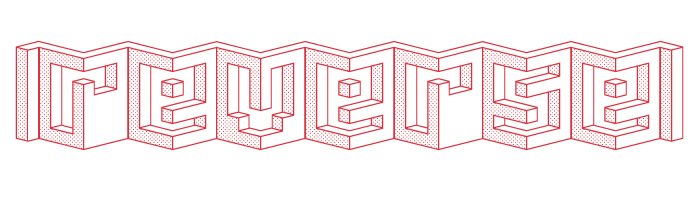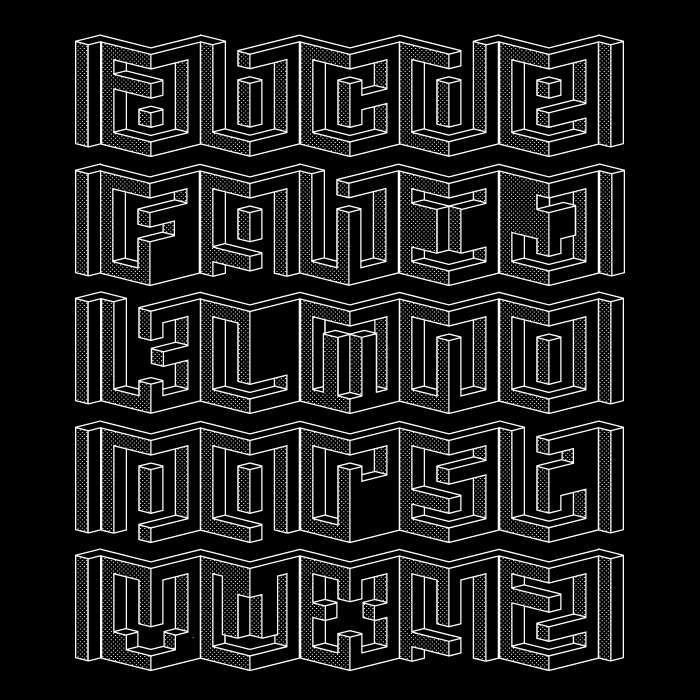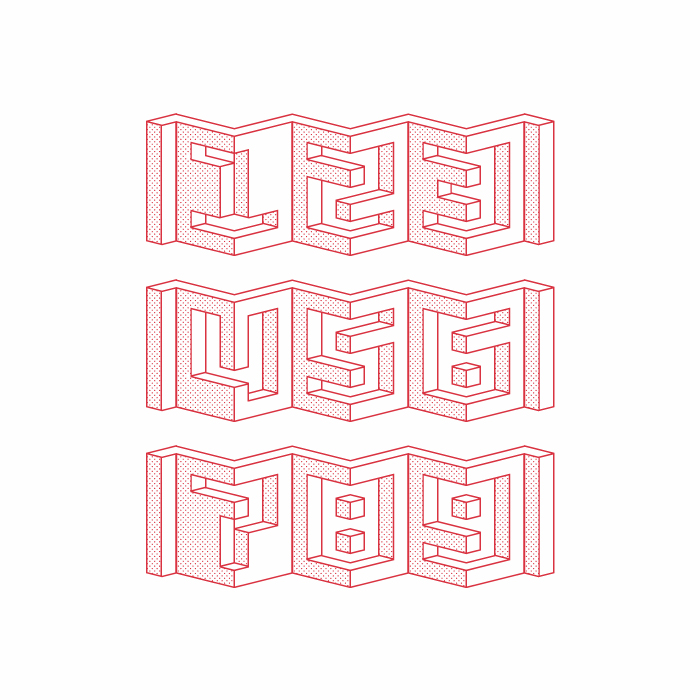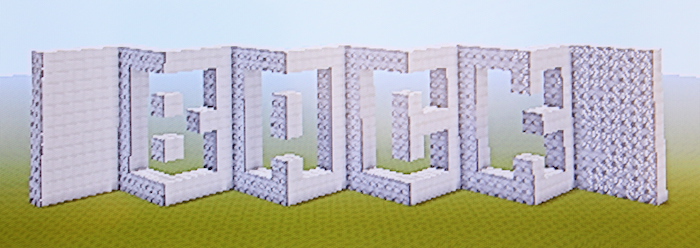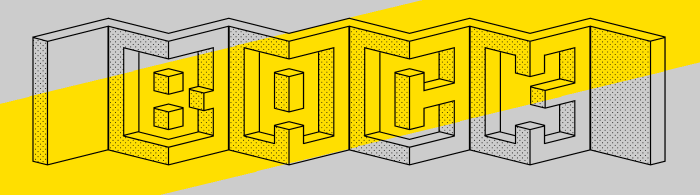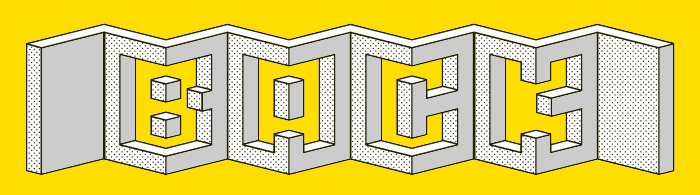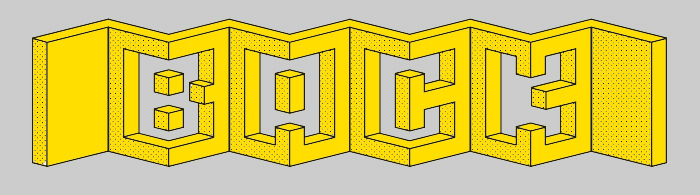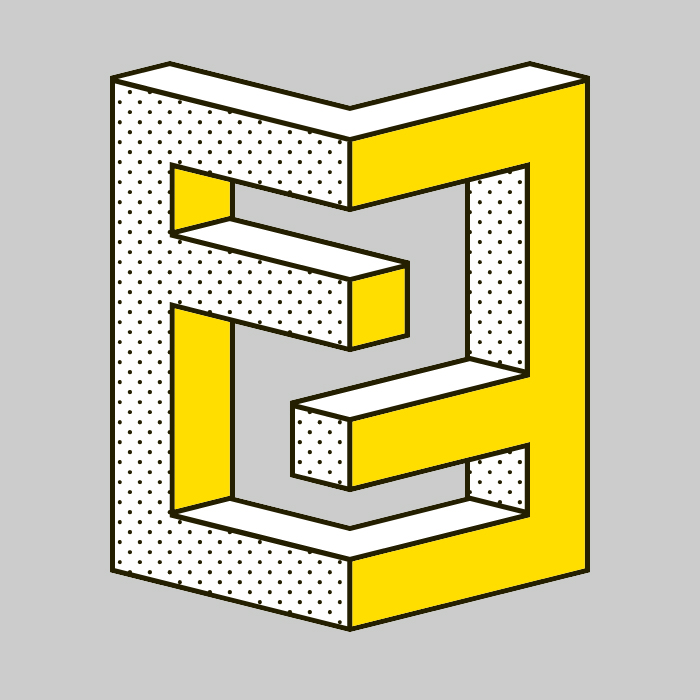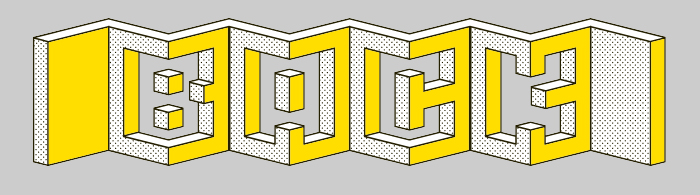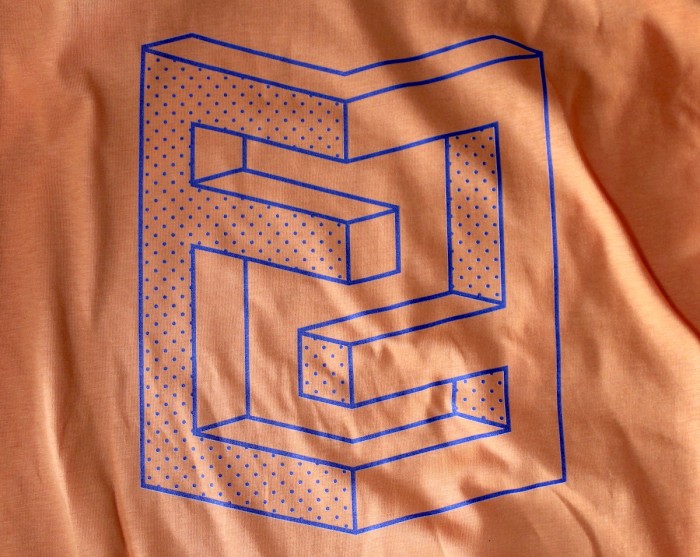
As if you removed the glyphs' shapes from angled planks or encased them in concrete. Very creative.
Dude! It's frontways, backways, sideways and reverse. Awesome.
It will be very hard to beat this in the comp!
DUDE. HOW IS THIS POSSIBLE? NICE!!
Why arenthere floatng blocks? You can support them with a cylinder or something.
A beautiful font and an incredibly strong contender
Another great entry, agree with all the others. A Fonststruct gem.
Thanks for the thumbs up everyone! I've spotted some 'mistakes' in the samples since uploading and updated the font, but I have no idea how to replace the samples, so I've posted some improved ones here.
Your 3D inspired my 3D. I really like the way you allowed the letters to 'breathe' through ascenders and descenders. And the opening and closing adornments are a welcomed addition.
Dude! So awesome! How did you pull this one off?
Can you support floating bricks with a thin cyllinder or something...
Fantastic 3D! My 10 2U & fav. Someday I'd like to dare something like this.
Try building this font in MineCraft and upload  it here.
Awesome 3D letters using negative space. The words appear as small leporellos. What a great concept! One would be tempted to build a short sample from concrete. (Never mind the floating pieces.) My favourite horse in the race. 10/10
Congratulations! FontStruct Staff have deemed your FontStruction worthy of special mention. “counter culture” is now a Top Pick.
Congratulations ♪♫ What can I say ... I love these meaningful spaces  that aren't empty :)) The master of cuts has created another striking  clever sculptural design, what insight and patience.
Lovely letterforms! The second last sample have showed it nicely. Congrats, for both being the winner and being featured by Behance Typography Gallery :)
it's unsane and awesome ; love it
Wow. You know whay you're doing!
Oh, wow! This is nice. Love it!
Realy cool!
Cool!
I took this idea a step further in Illustrator.
Very nice!
woah